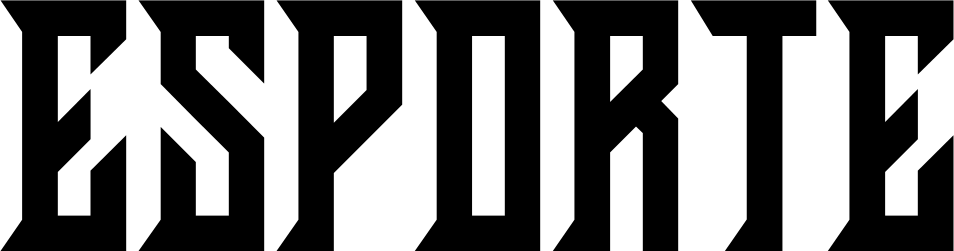
Esporte Font
It’s time to get your hands on one of the most practical gothic fonts and make a captivating outcome. Esporte can work great for apparel products, tattoos, logos, and more. Just give this 80s metal font a try and see how seamless it sounds. Remember that this one lacks numbers. To get similar fonts, you better head over to our vast library.
Esporte is a classic sport font. Made for any professional project especially that related to the sports. Beside that, this font can be used for printing, branding and quotes.